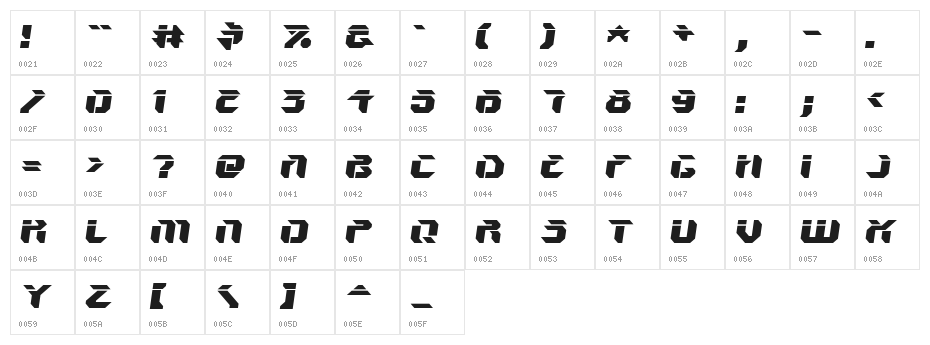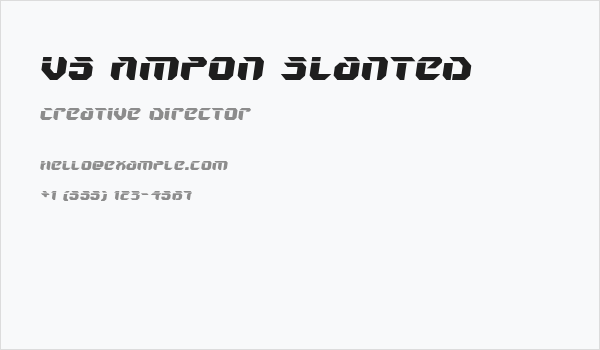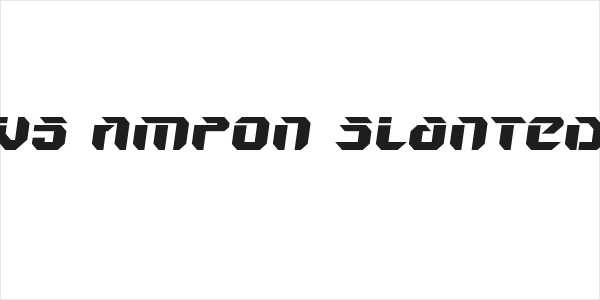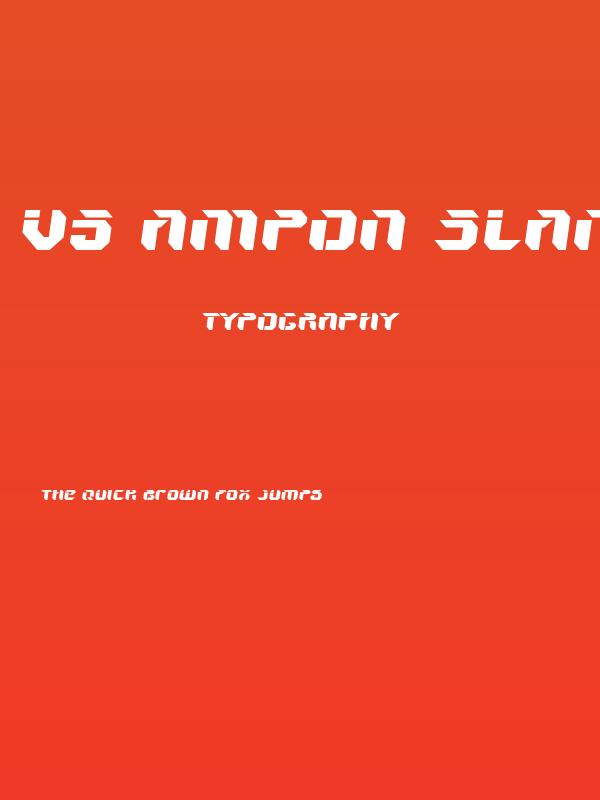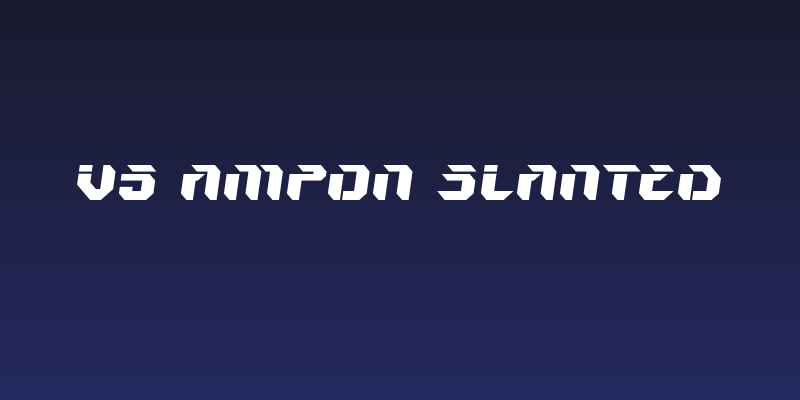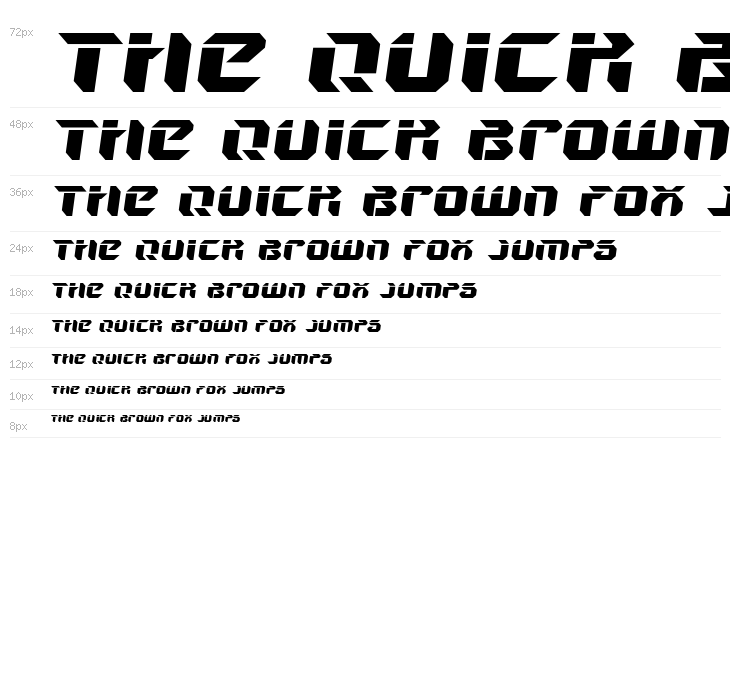
V5 Ampon Slanted Font
V5 Ampon Slanted Description
This font features a bold, geometric design with a slanted orientation, giving it a dynamic and futuristic appearance. The characters are constructed with sharp angles and straight lines, creating a sense of movement and energy. The uppercase and lowercase letters maintain a consistent style, with the same angular cuts and slanted posture. Numbers and special characters follow the same design principles, ensuring uniformity across all glyphs. The font's bold weight and unique style make it stand out, ideal for projects that require a modern and edgy look.
| Proposed Projects | Ideal for branding, posters, video game graphics, and sci-fi themed projects. |